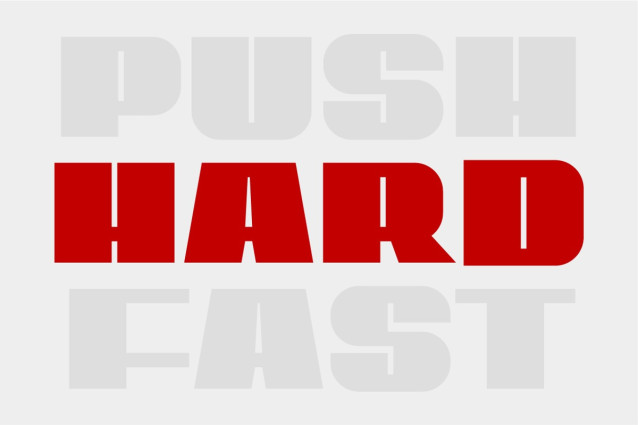
Azham Font
Azham Font is a heavyweight display font designed for maximum visual impact. With bold letterforms and balanced geometric shapes, this typeface ensures a strong presence in any layout. Perfect for posters, headlines, branding, packaging, and digital media, Azham delivers clarity and power in every letter.